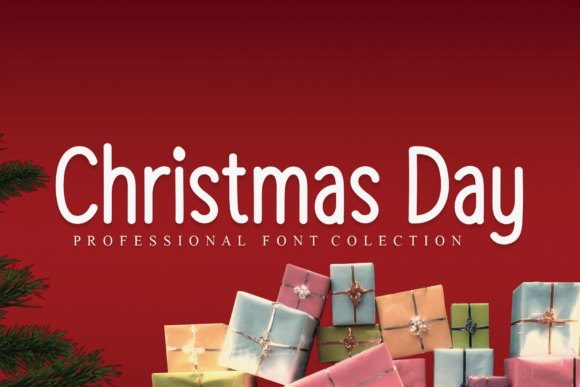
About Christmas Day Font
Christmas Day is a charming and natural handwritten font that adds a touch of simplicity and elegance to any design. With its clean, thin, and smooth vibe, it is perfect for a wide range of projects. Here are some ways you can utilize Christmas Day to create captivating designs:
1. Greeting Cards: Design beautiful and heartfelt Christmas greeting cards using Christmas Day. Its natural and clean look will convey warm wishes and festive spirit.
2. Gift Tags and Labels: Create personalized gift tags and labels with Christmas Day, adding a unique touch to your presents.
3. Social Media Graphics: Use Christmas Day in your social media posts, stories, and banners to share holiday-themed content with your followers.
4. Party Invitations: Design inviting and joyful party invitations for Christmas celebrations, featuring Christmas Day as the main font.
5. Holiday-Themed Art Prints: Create charming art prints with Christmas quotes or phrases using Christmas Day, perfect for decorating your home during the holiday season.
6. Gift Wrapping Designs: Apply Christmas Day to design custom wrapping paper or gift bags for a personal and festive touch.
7. Festive Flyers and Posters: Use Christmas Day to create eye-catching flyers and posters for holiday events and sales.
8. Recipe Cards: Design holiday recipe cards with Christmas Day for sharing your favorite festive recipes with friends and family.
9. Digital Scrapbooking: Incorporate Christmas Day into digital scrapbooking projects to capture and cherish your holiday memories.
10. Website and Blog Graphics: Use Christmas Day in your website headers, blog graphics, or email newsletters to add a festive and welcoming touch.
In conclusion, Christmas Day is a simple and natural handwritten font that enhances the beauty of your designs with its clean and smooth vibe. Whether it’s for greeting cards, social media graphics, gift tags, or holiday-themed art prints, Christmas Day will add a special touch to your festive creations. Embrace the versatility of Christmas Day and bring the warmth of the holiday season to your designs.